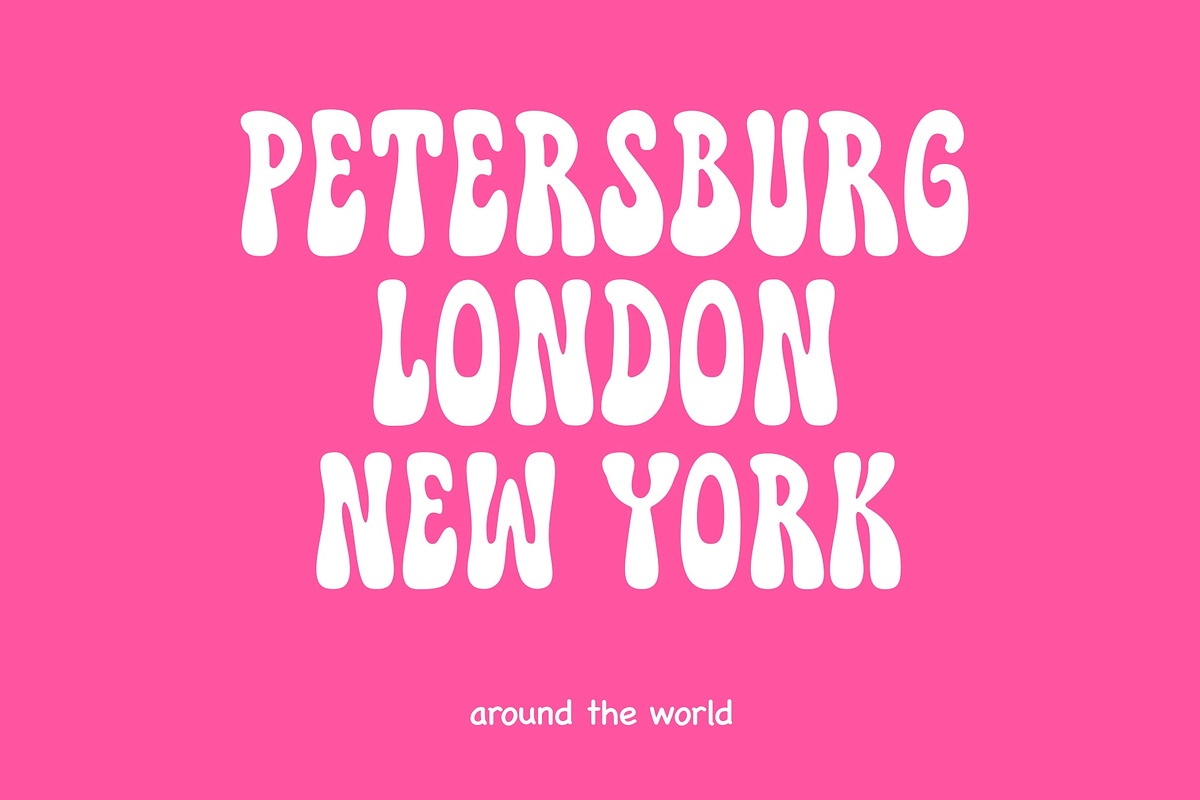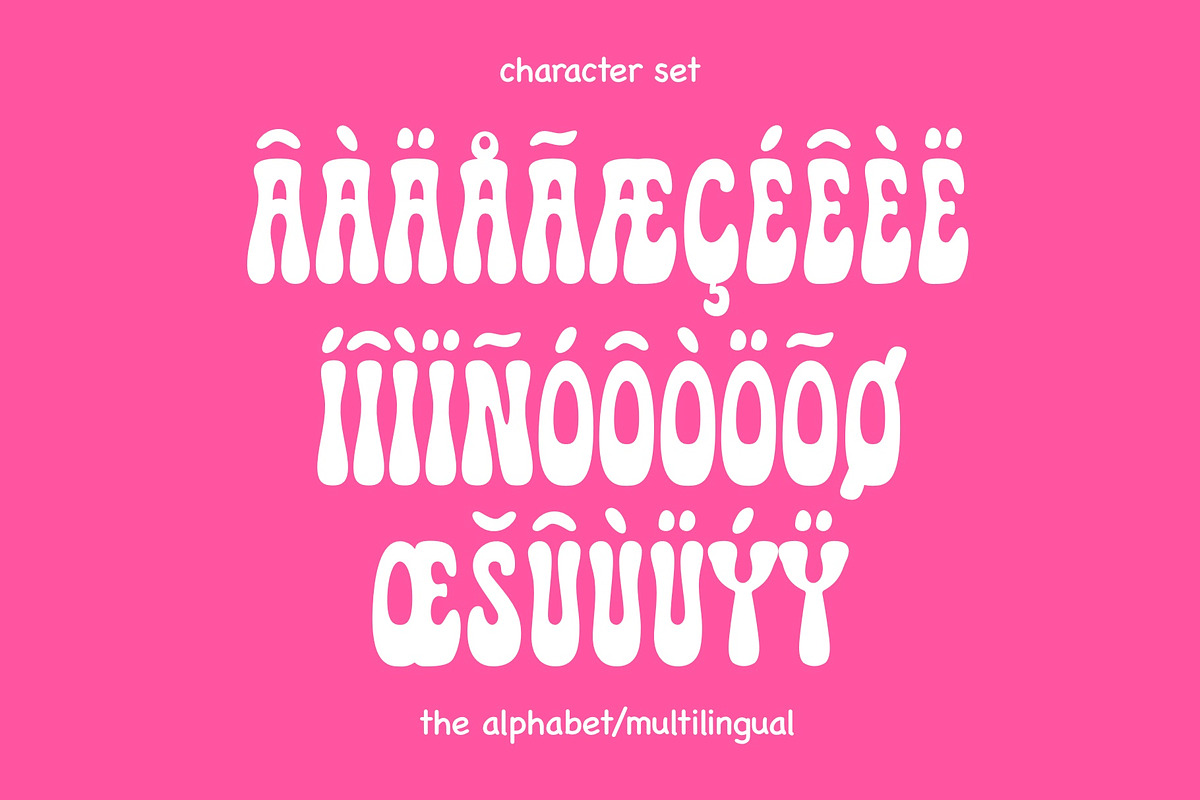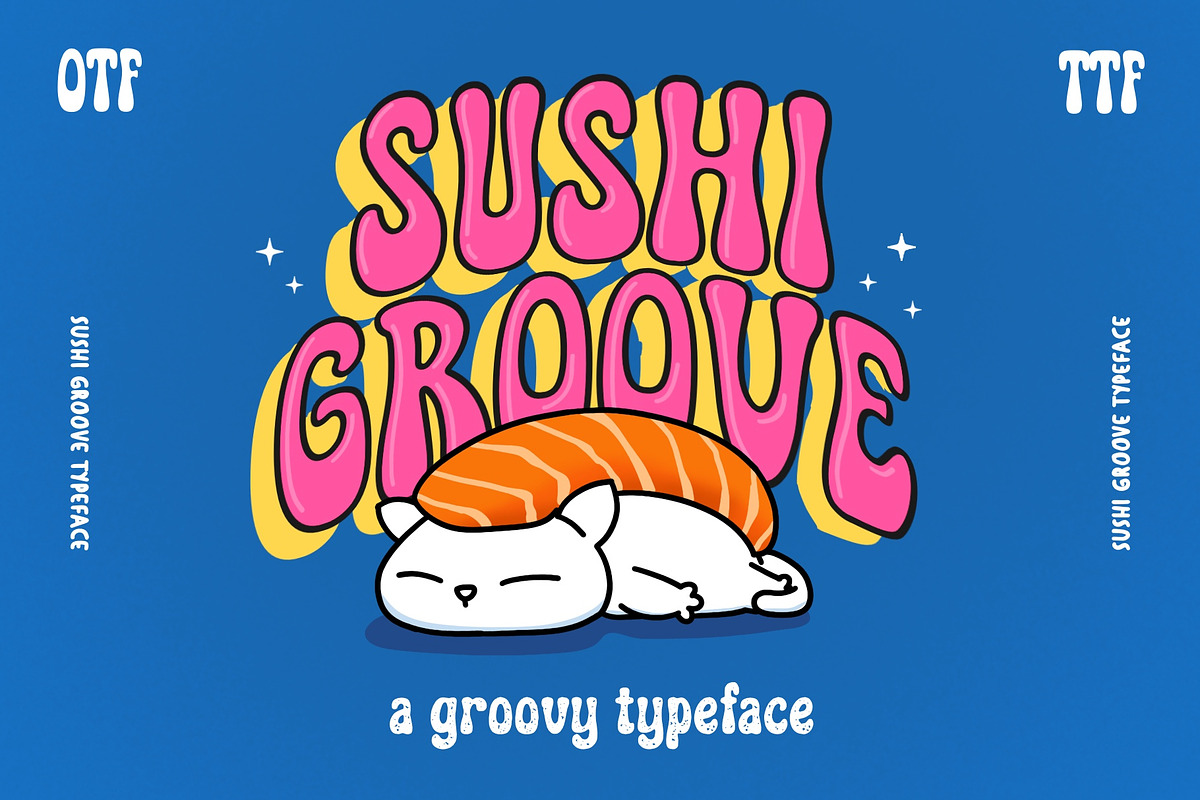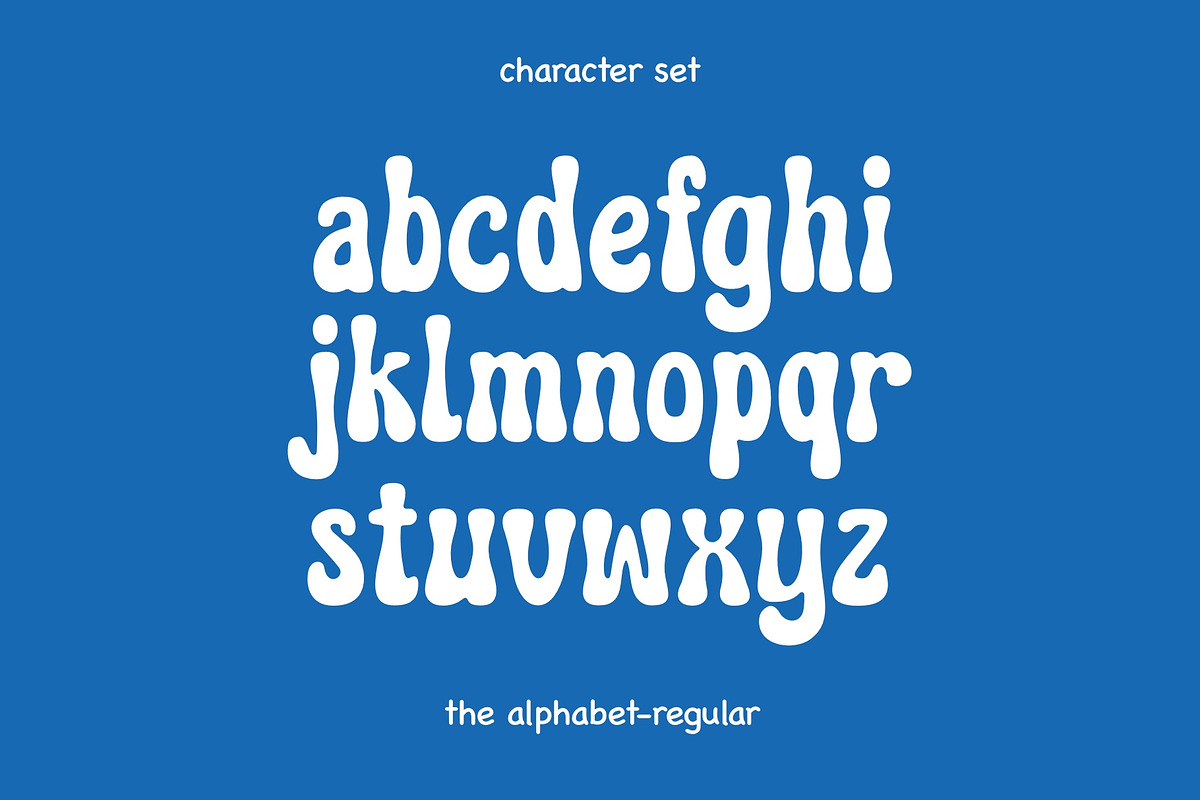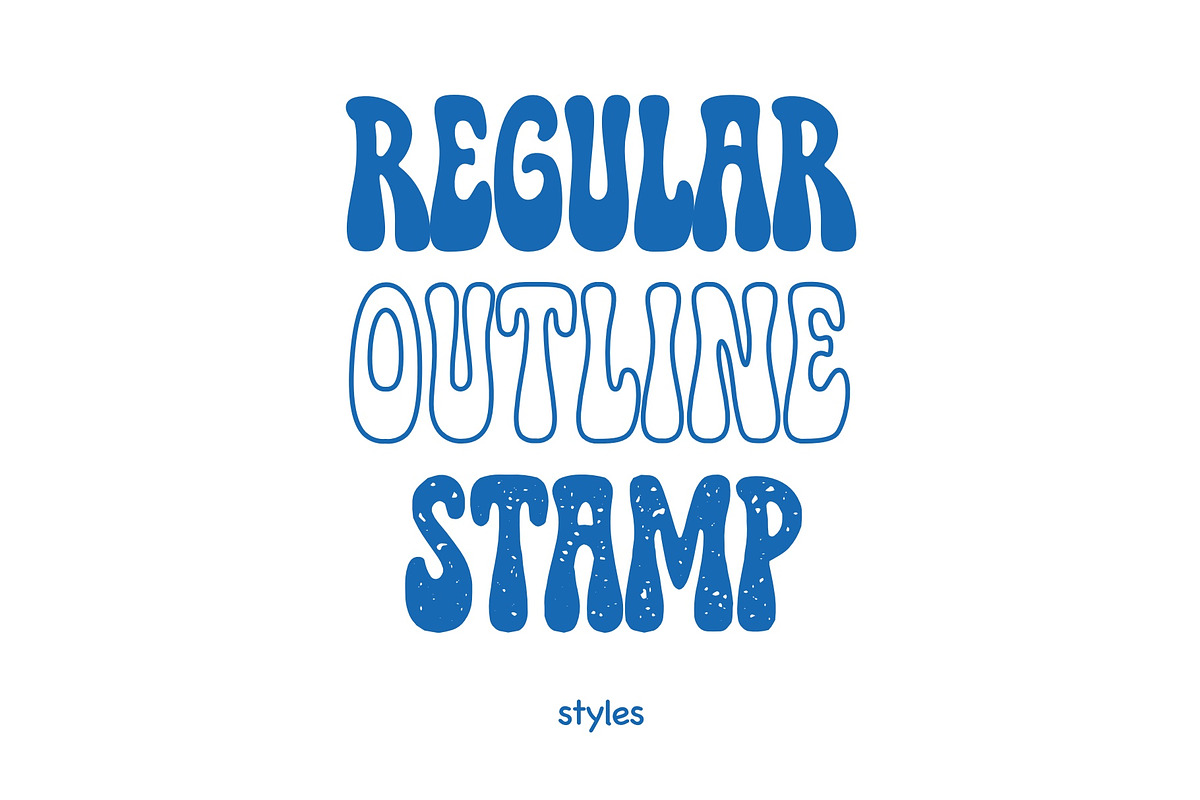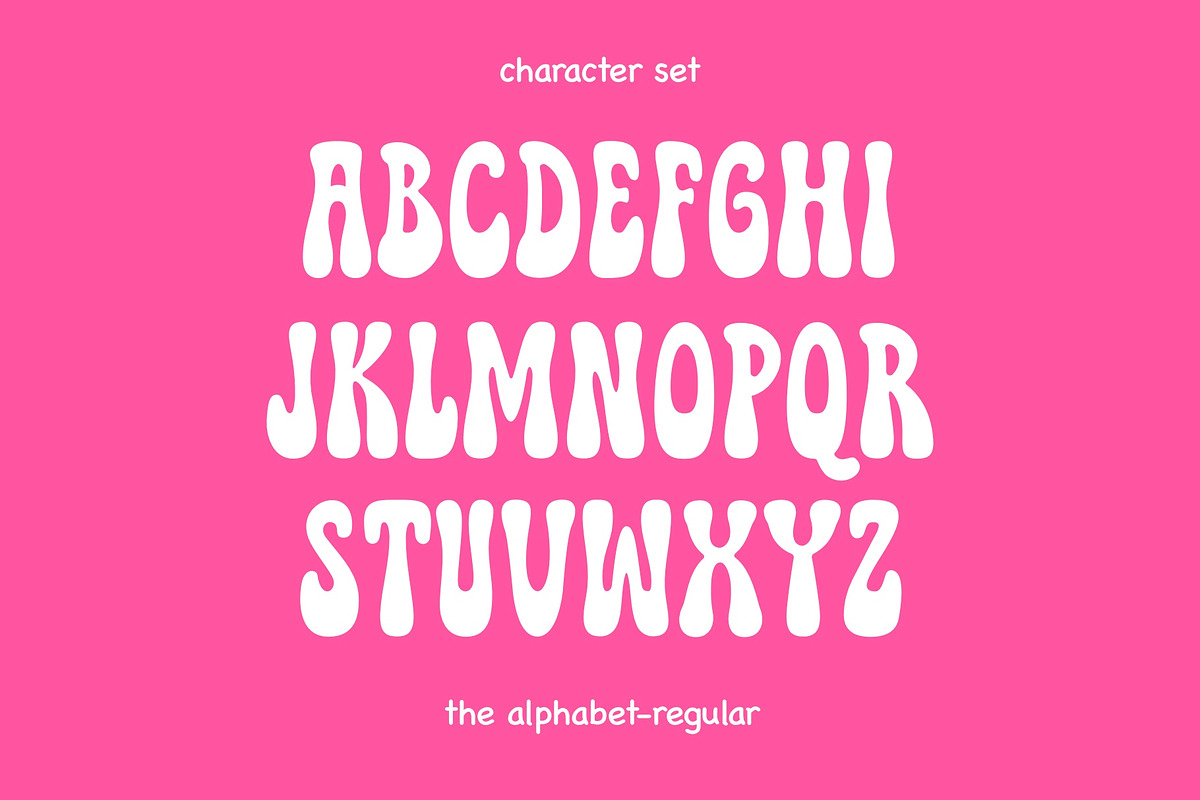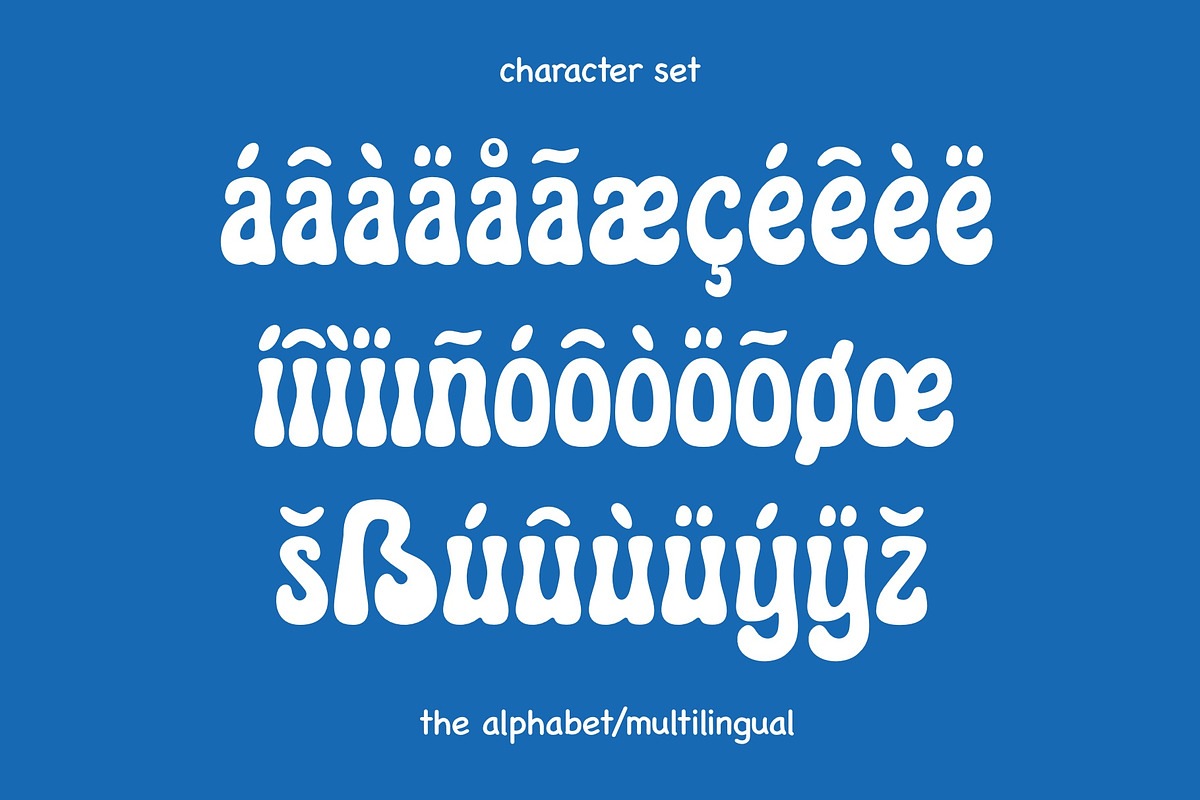
Sushi Groove Font - Groovy Font
Sushi Groove is a captivating and whimsical font product that effortlessly channels the essence of the groovy bubble retro style. This typeface available in SVG format, compatible with advanced tools such as Cricut and Glowforge, and for use in Procreate. "Sushi Groove" is the perfect choice for those seeking to infuse their designs with a touch of retro charm, making it an ideal selection for posters, branding, and graphics that aim to transport audiences back to a bygone era with its vibrant and lively typography.